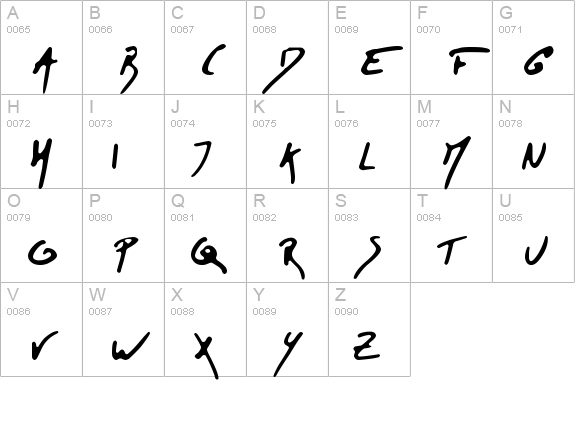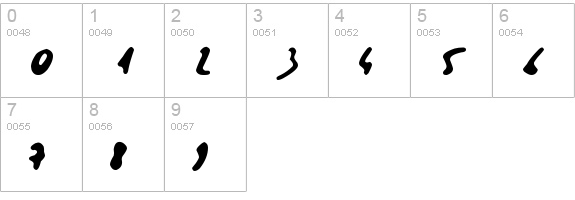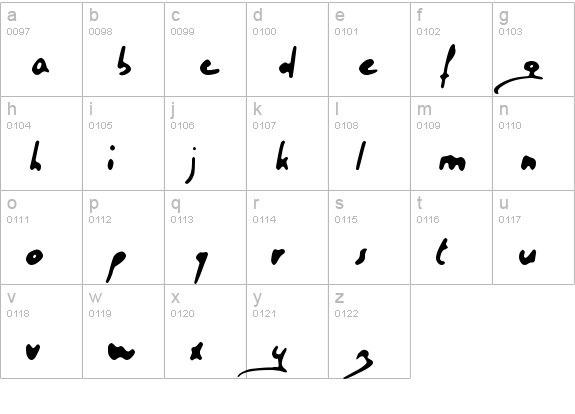
Tristan Font Details
Tristan font is a stunning typeface that exudes elegance and sophistication. With its smooth lines and graceful curves, this font is perfect for creating eye-catching designs that demand attention. What sets Tristan font apart is its versatility. Whether you're designing a logo for a luxury brand, crafting a wedding invitation, or creating a striking poster, this font has the ability to elevate any project to new heights. Its timeless appeal ensures that your designs will remain relevant and visually captivating for years to come. One of the best things about Tristan font is that it is freely available to download at FontsMarket.com. This means that you can easily access this beautiful font and start using it in your designs without any hassle. Its availability for free allows you to experiment with different styles and applications, giving you the freedom to explore your creativity and create truly unique and captivating designs. The beauty of Tristan font lies not only in its aesthetics but also in its legibility. Each letter is meticulously crafted to ensure that it is easy to read, making it suitable for a wide range of projects, from printed materials to digital designs. Its versatility and readability make it a must-have font for any designer or creative professional. So, whether you're a seasoned designer looking to add a touch of elegance to your work or a novice designer searching for a font that will make your designs stand out, Tristan font is the perfect choice. With its timeless beauty, versatility, and the fact that it is freely available to download at FontsMarket.com, this font is sure to become a valuable asset in your design toolkit.